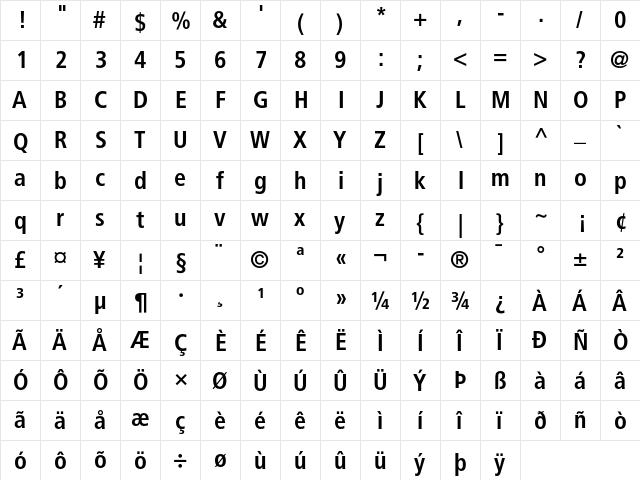
Frutiger 67 Bold Condensed
Design Context for Frutiger Typeface
Frutiger offers clean, dependable letterforms without strong stylistic allegiance, making it a practical choice for designers who need flexibility. The heavy weight commands attention and anchors typographic hierarchies. Its narrow stance lets it pack a punch even in space-constrained designs.